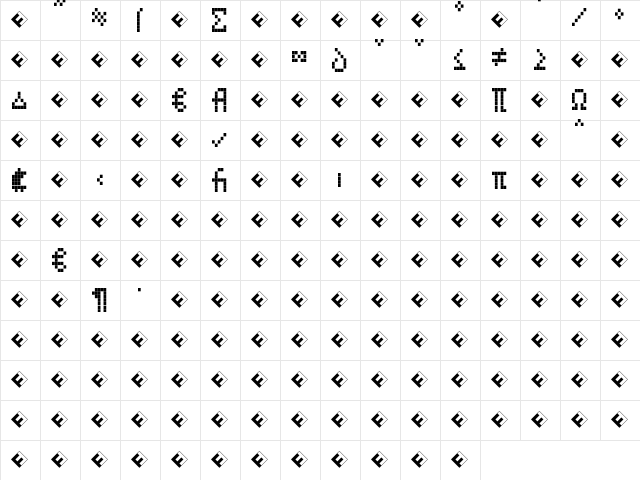
CallSeven-RegularExp Regular
Design Context for CallSeven-RegularExp Typeface
CallSeven-RegularExp is a composed and adaptable typeface that performs quietly and consistently across a wide range of design contexts.